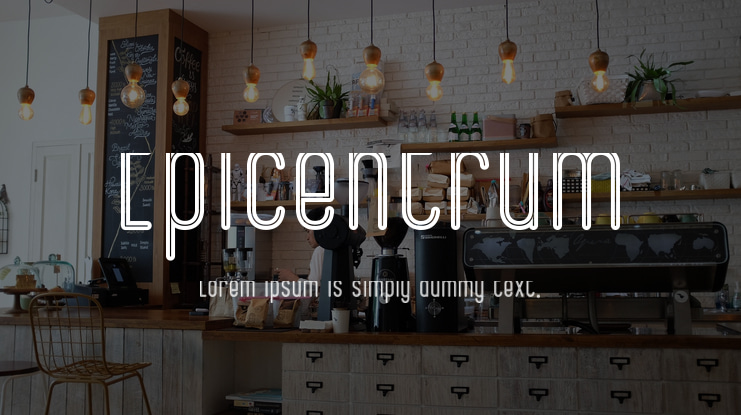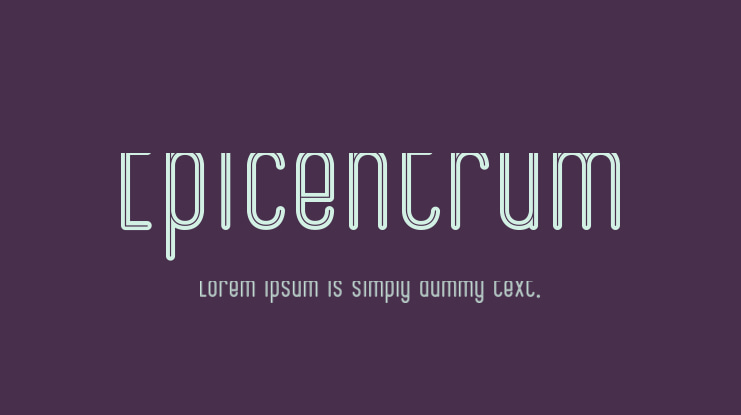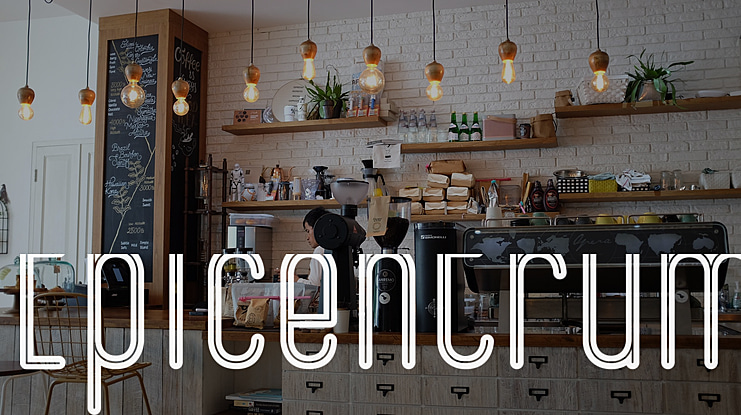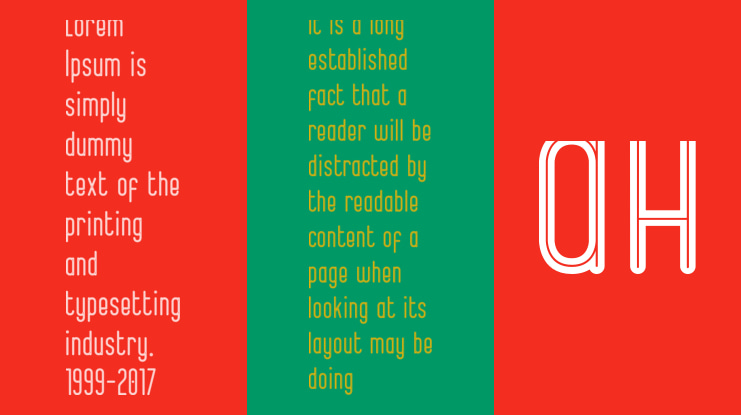
Epicentrum Font
Epicentrum is a universal sans serif with a minimal style of strokes, a closed aperture and geometric shapes. It comes with four rounded styles which are perfect for large arrays of texts. The individually developed design of each glyph makes it possible to use it successfully as a display font. All weights can be combined perfectly which gives you the opportunity to create endless unique designs with just this one download